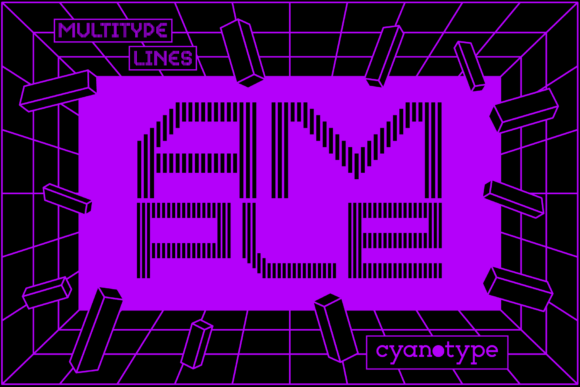
Dive into the world of boundless creativity with MultiType Lines Ample Font, a captivating masterpiece that will transform your designs into visually stunning creations. Crafted with pixelated precision, this decorative font exudes a distorted yet trendy charm, adding an edgy touch to your projects.
Unleash your imagination and explore the endless possibilities that await with MultiType Lines Ample. Its unique shape and cool pixelated texture will elevate your designs, making them stand out from the ordinary. Whether you're creating eye-catching posters, trendy social media posts, or unique branding materials, this font will inject a burst of personality and style into every project.
Express your individuality and embrace the distorted beauty of MultiType Lines Ample. Its unconventional charm will add a touch of intrigue and captivate your audience, leaving a lasting impression. Join the ranks of creative visionaries who have discovered the power of this remarkable font and unlock a new realm of design possibilities.
With MultiType Lines Ample, the possibilities are limitless. Its PUA encoding ensures effortless access to all glyphs and swashes, empowering you to unleash your creativity without boundaries. Let your imagination soar and craft designs that speak volumes, leaving an indelible mark on your audience.
Discover the allure of MultiType Lines Ample today and embark on a creative journey like never before. Its distorted elegance and pixelated perfection will transform your designs into masterpieces, leaving your audience mesmerized and inspired. Embrace the beauty of the unexpected and elevate your projects to new heights with this extraordinary font.